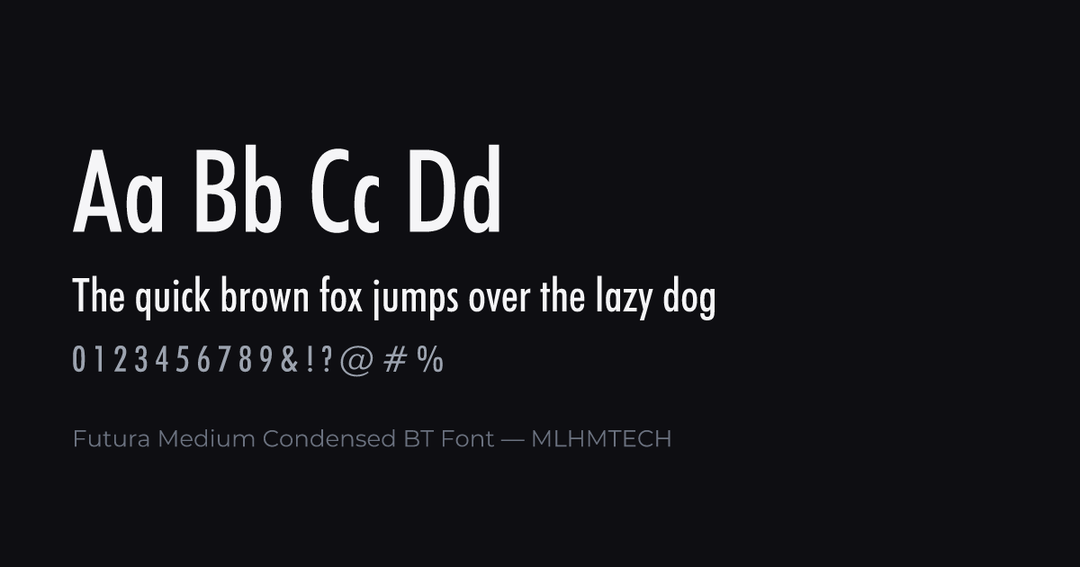
Futura Medium Condensed BT Font
Futura Medium Condensed BT is a geometric sans-serif font with a condensed, clean look. Ideal for headlines, logos, and modern designs.
Futura Medium Condensed BT is a classic geometric sans-serif typeface, known for its clean, modern appearance. The condensed version saves space while maintaining legibility, making it perfect for titles, posters, and branding.
This font is part of the Futura family, designed by Paul Renner in the 1920s. Its geometric shapes and balanced proportions give it a timeless, professional feel. The medium weight offers a good balance between boldness and elegance.